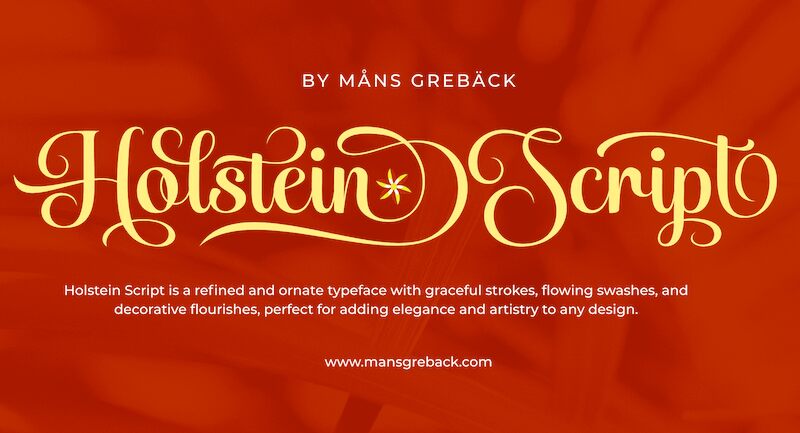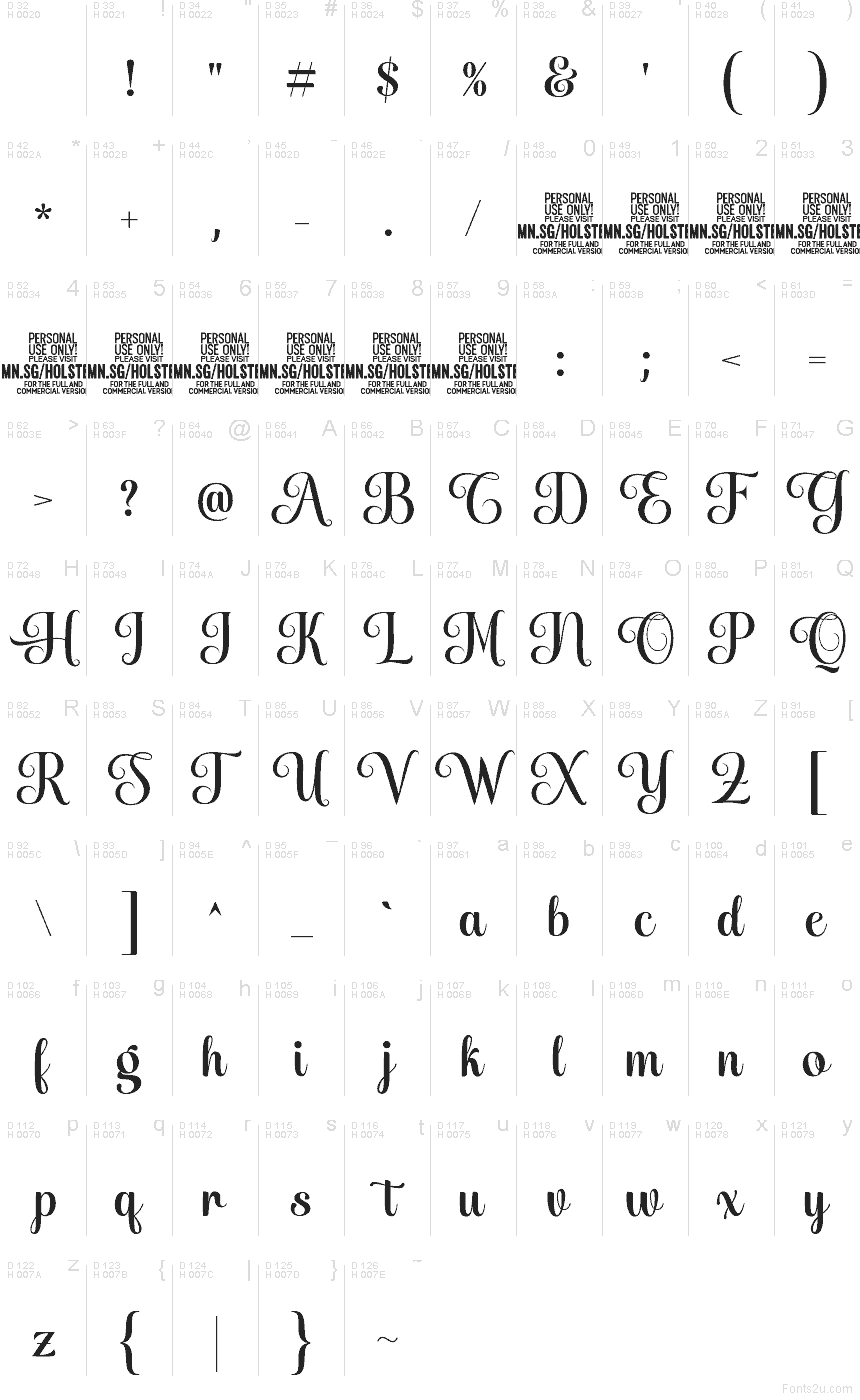
Holstein Script font by Mans Greback is a free calligraphy typeface with lush, looping strokes and a warm, handwritten rhythm. Its inky, slightly textured curves feel like they were brushed onto thick paper, giving your designs a romantic, crafted presence without becoming fussy or hard to read. Generous spacing between letters keeps those flourishes airy, so the script feels elegant rather than cramped.
Using Holstein Script, you can bring a graceful sweep to wedding invitations, boutique logos, product packaging, greeting cards, event signage, and social media quotes. This free font shines when set large, where the curls and swashes can really breathe. For a balanced layout, pair Holstein Script with a clean sans-serif for body text to let the script headline steal the spotlight.